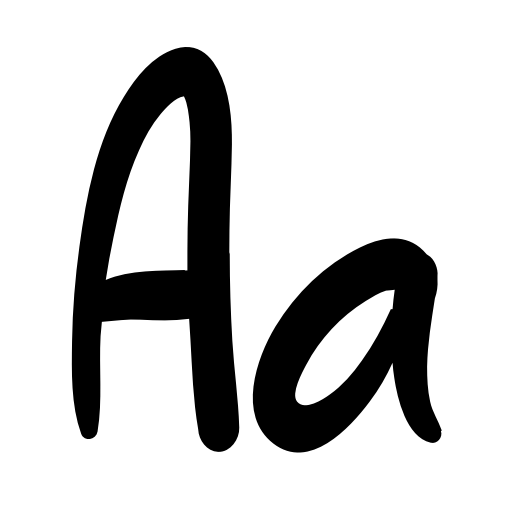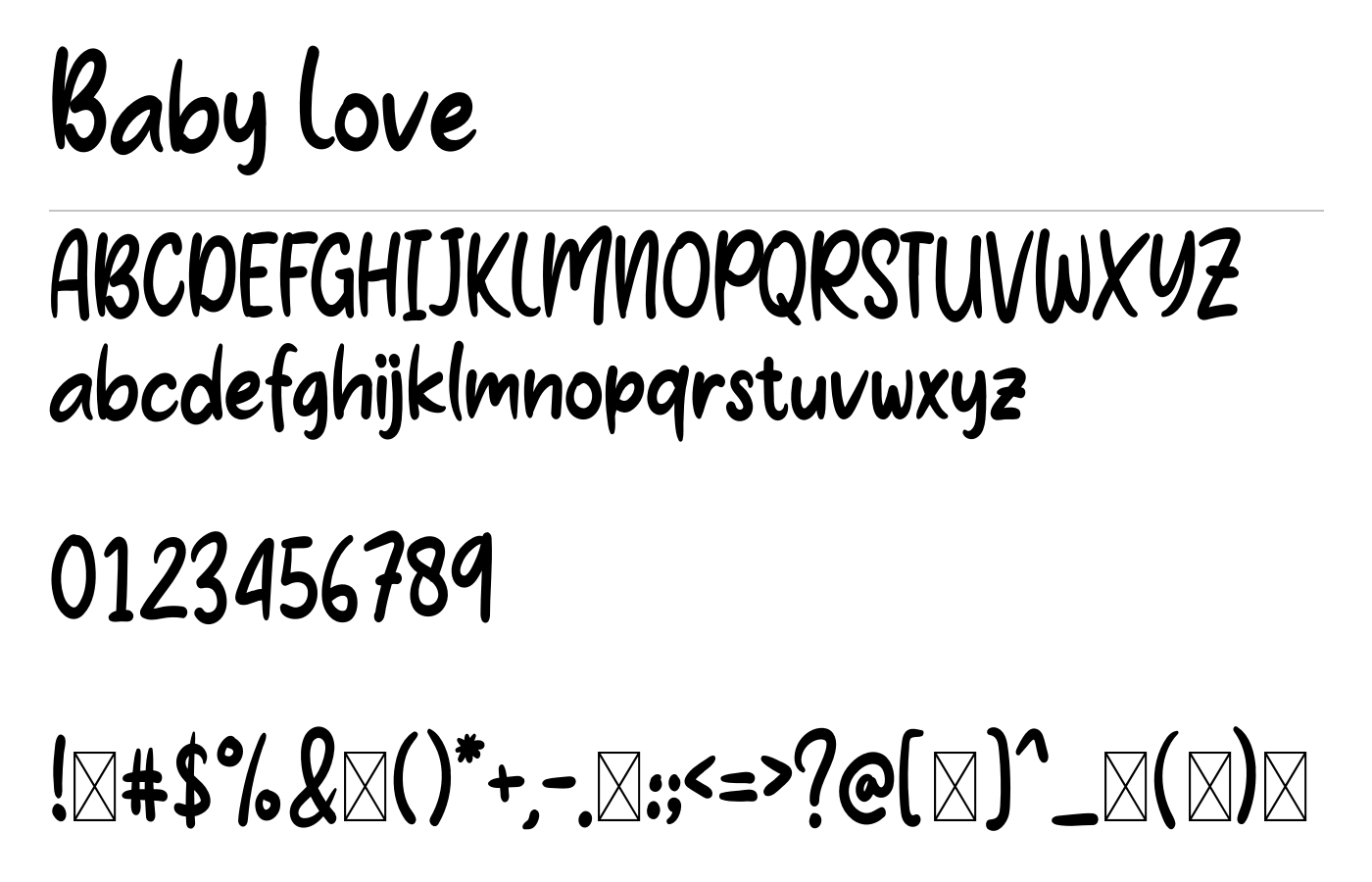
Baby Love is a playful, casual script font with a hand-drawn feel, featuring rounded, friendly letterforms that convey warmth and approachability. Its smooth, consistent strokes and upright style make it ideal for designs needing a personal, cheerful touch, such as kids' products, informal branding, or fun headlines. This font works best where a lively and inviting voice is desired.
Baby Love Font
About Baby Love Font